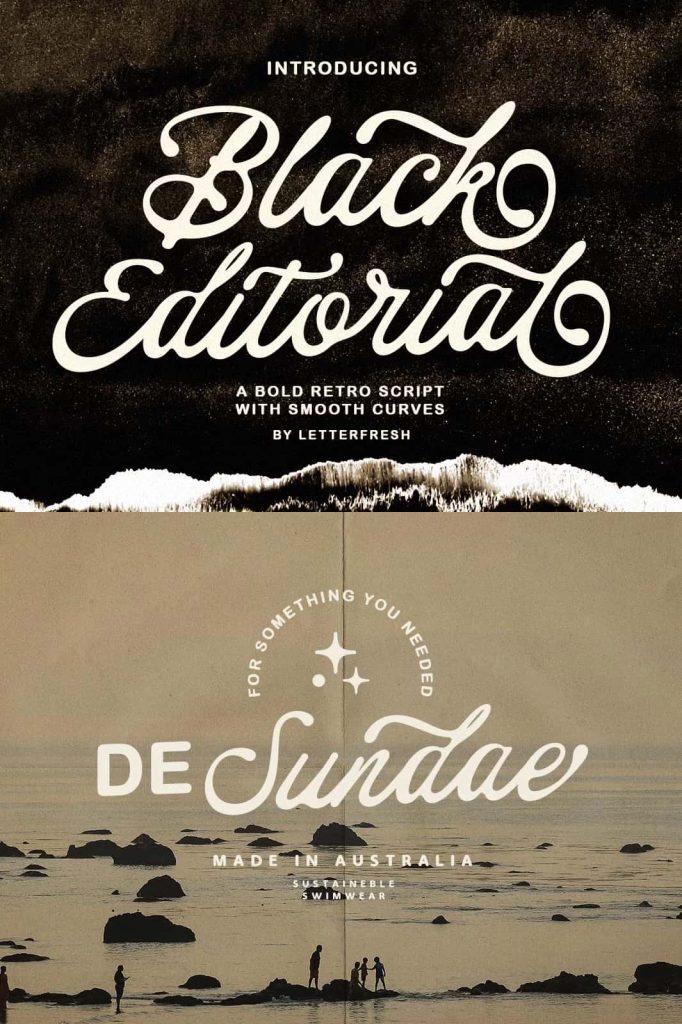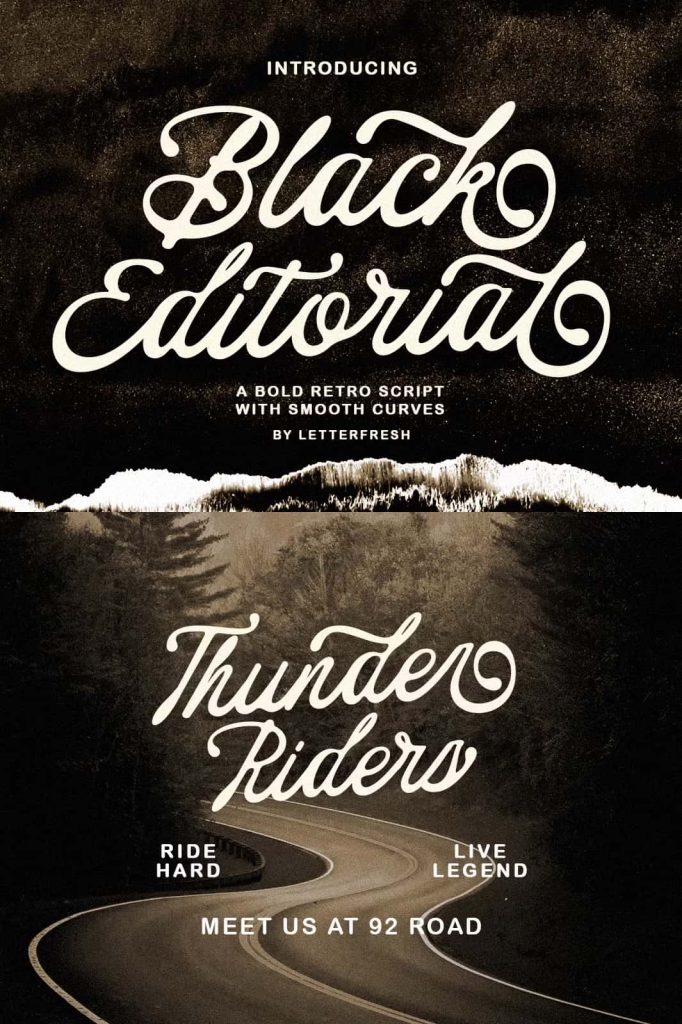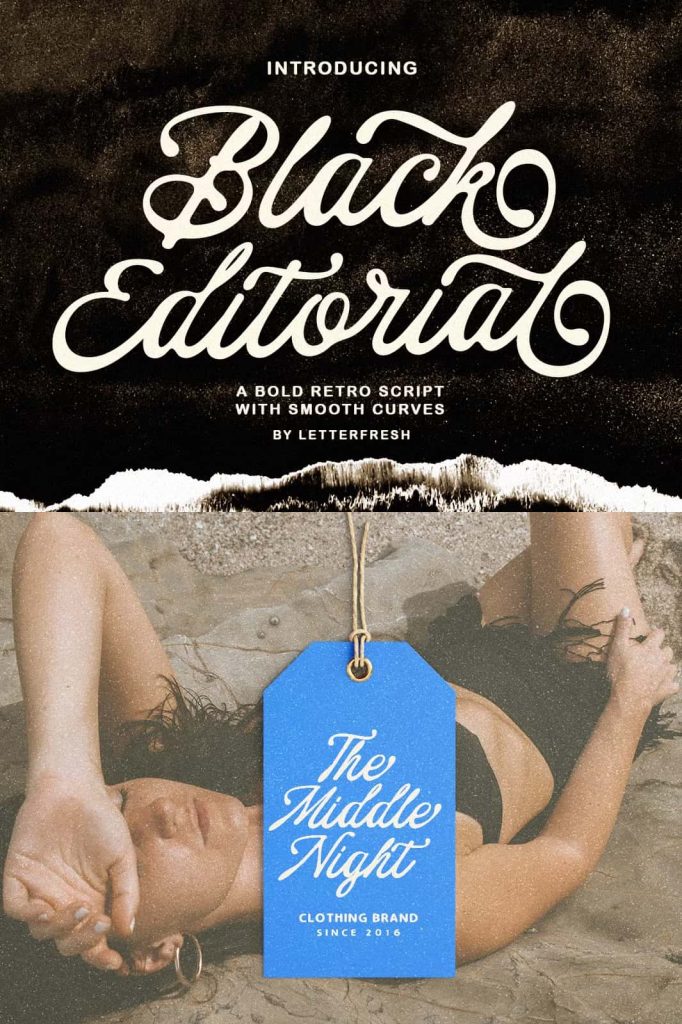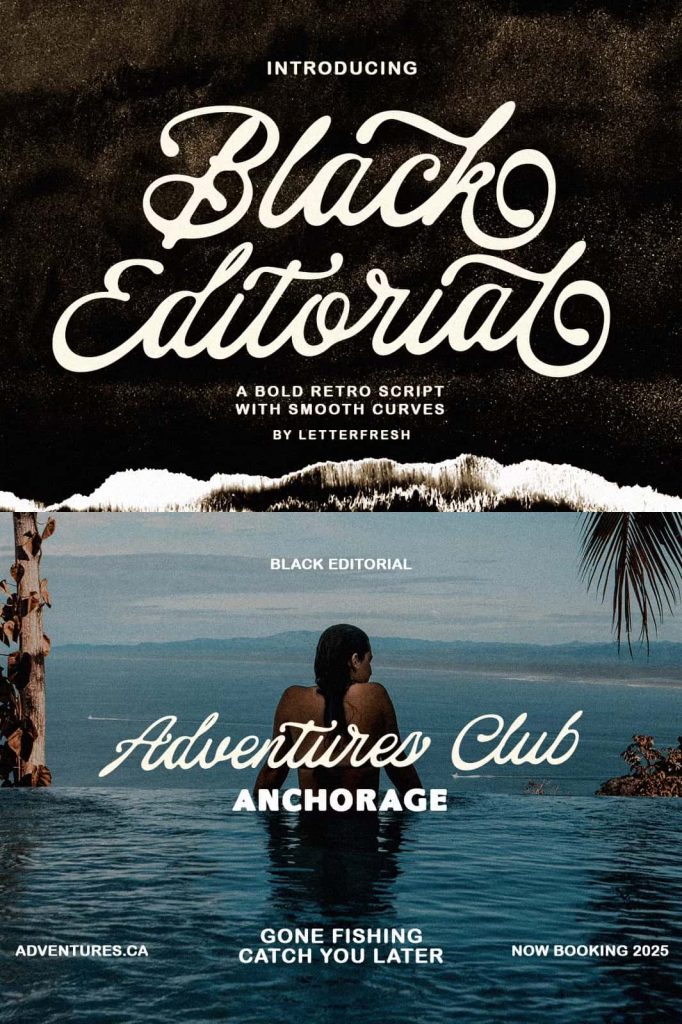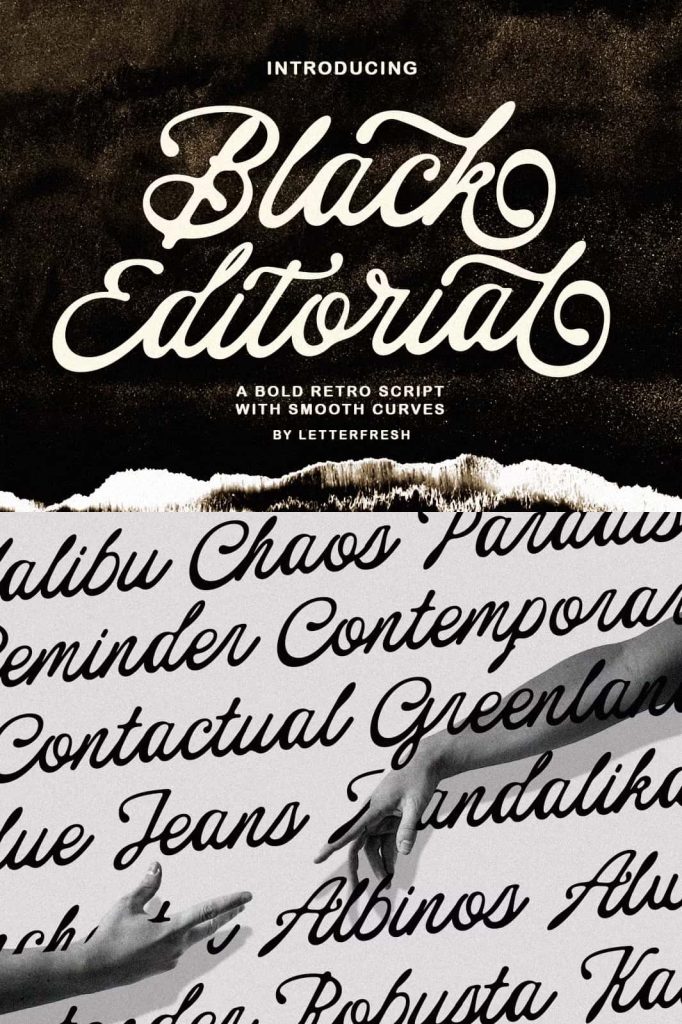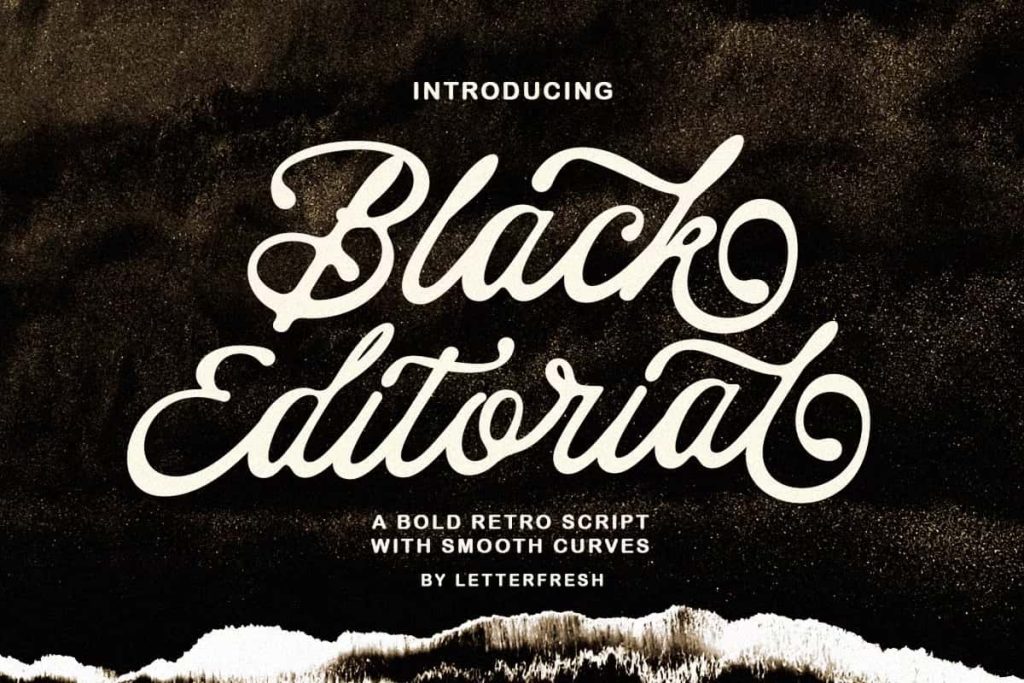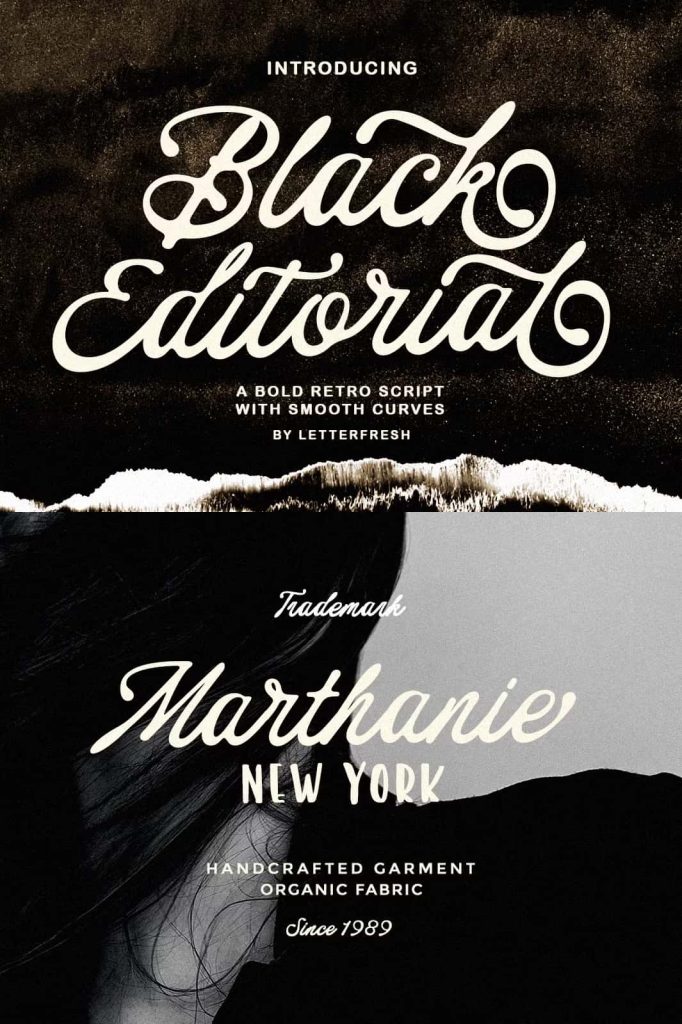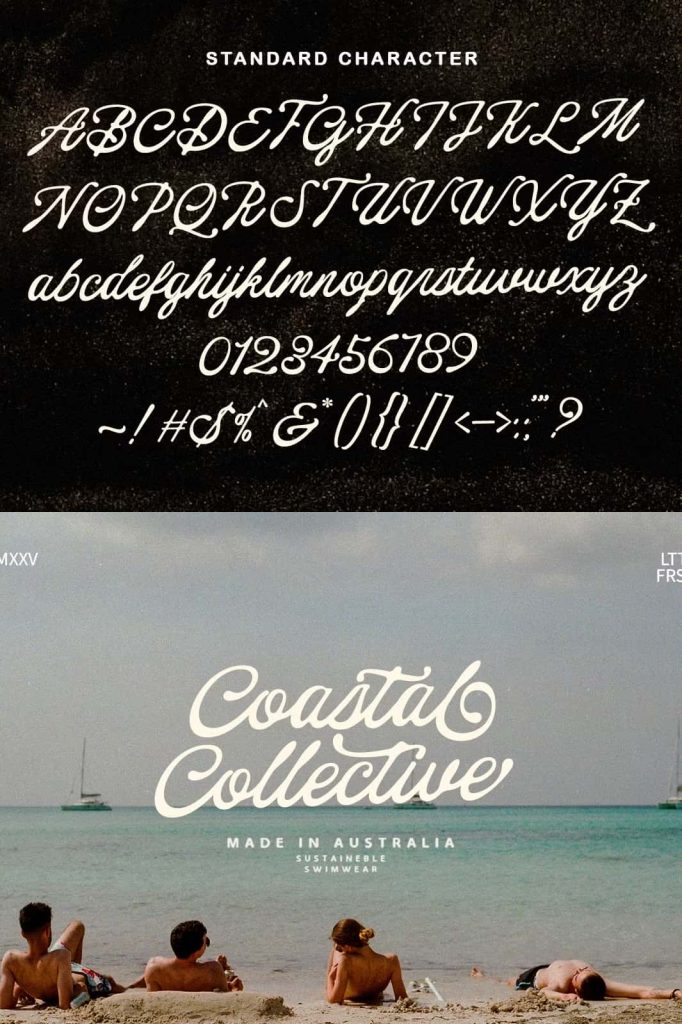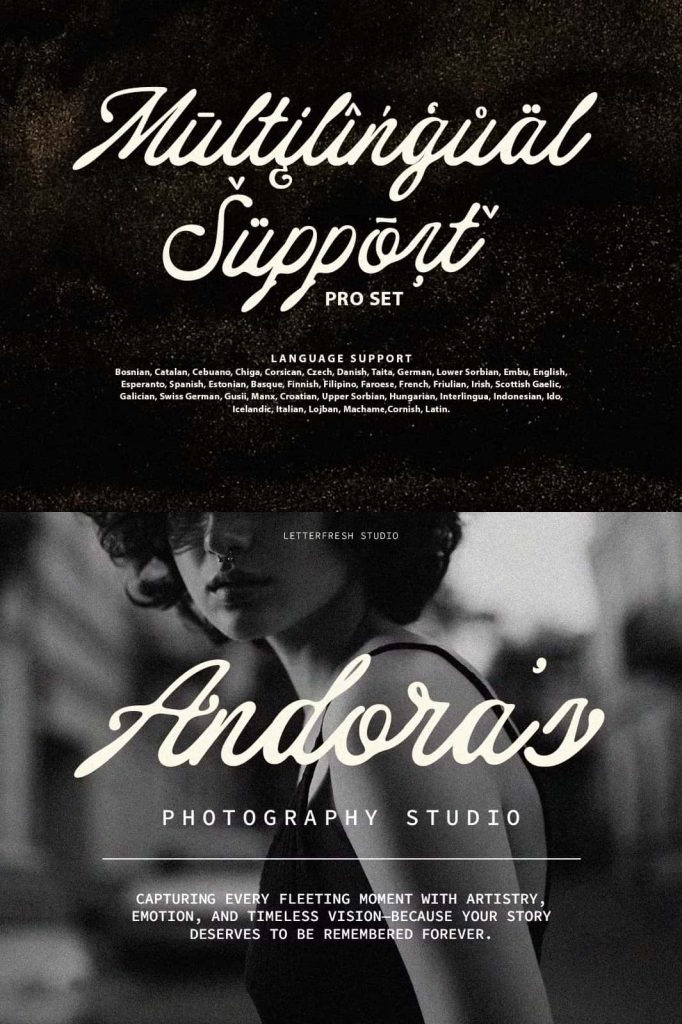
Black Editorial Handwritten Font: Modern Vintage Style with Classic American Influence
Black Editorial is a bold handwritten font that blends modern vintage aesthetics with retro character and classic American traditional style. It delivers a strong visual identity while maintaining the natural flow of handwritten lettering. This typeface allows designers to create expressive and authentic typography quickly and efficiently, making it a powerful tool for both personal and commercial projects.
With its carefully crafted letterforms, Black Editorial transforms simple text into compelling visual statements. It captures the spirit of old-school craftsmanship while adapting seamlessly to modern design needs.
The Inspiration Behind Black Editorial
Black Editorial draws its inspiration from a rich mix of design traditions. It reflects the boldness of retro typography, the elegance of modern vintage styles, and the distinctive character of classic American lettering. These influences come together to create a font that feels timeless yet fresh.
The typeface channels the energy of hand-painted signs, vintage advertisements, and editorial layouts from past decades. At the same time, it introduces a contemporary edge that keeps it relevant in today’s design landscape. This balance allows Black Editorial to stand out while remaining versatile.
Key Features of Black Editorial
Handwritten Authenticity
Black Editorial captures the natural rhythm of handwriting. Each stroke feels intentional yet fluid, creating a sense of movement and personality. This handcrafted quality adds warmth and originality to any design.
Modern Vintage Aesthetic
The font combines vintage inspiration with modern refinement. It avoids overly decorative elements while maintaining a strong stylistic identity, making it suitable for a wide range of creative applications.
Strong and Expressive Letterforms
The bold structure of Black Editorial ensures that it stands out in any composition. Its confident shapes make it ideal for headlines, logos, and other focal points within a design.
Practical and Easy to Use
Black Editorial is designed for efficiency. It allows designers to create handwritten-style typography instantly without the need for manual lettering. This practicality makes it a valuable asset for fast-paced creative workflows.
Best Use Cases for Black Editorial
Black Editorial adapts well to a variety of design contexts, especially those that require a personal and expressive touch. It works particularly well for:
- Logo design and brand identity projects
- Handwritten quotes and inspirational graphics
- Product packaging with a vintage or artisanal feel
- Posters, headers, and promotional materials
- Merchandise design such as apparel and accessories
- Social media content and greeting cards
Designers often use this font in large sizes to highlight its expressive qualities. Pairing it with a simple sans-serif typeface can create a balanced layout that enhances readability while keeping the design visually engaging.
Why Choose Black Editorial?
Black Editorial stands out because it combines style, functionality, and versatility. It allows designers to achieve a handcrafted look without sacrificing efficiency. The font’s strong personality helps create memorable designs that connect with audiences on an emotional level.
In branding, this emotional connection plays a crucial role. Black Editorial communicates authenticity, creativity, and confidence—qualities that help brands establish a unique and recognizable identity.
Black Editorial is more than a handwritten font; it is a creative solution for designers who want to merge vintage charm with modern practicality. By blending retro influences with classic American style, it delivers a typeface that feels both timeless and dynamic. For projects that require bold expression and authentic character, Black Editorial offers a reliable and inspiring choice.